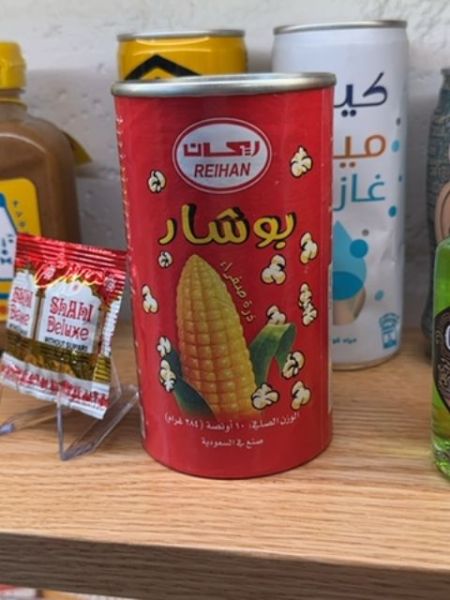
Reihan Popcorn
A product for making popcorn from corn kernels.
Unknown
The typography includes a bold, rounded Arabic script for the main product name, giving it an approachable and friendly feel. The brand name 'Reihan' is set in a sans-serif typeface, which provides a modern and clean look, contrasting with the more traditional script of the main text.
The packaging features a bright red background with images of popcorn and a corn cob. The brand name is prominently displayed at the top in a white oval on a red background.
- Contains corn kernels for making popcorn.
- The product is from the Reihan brand.
- The packaging includes visual imagery to highlight the product contents.